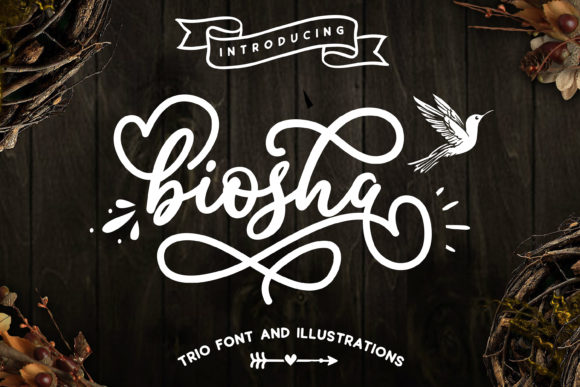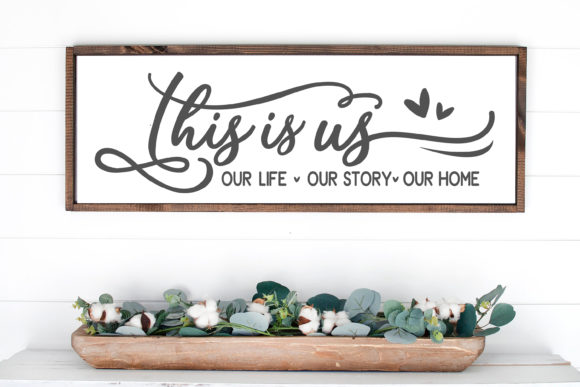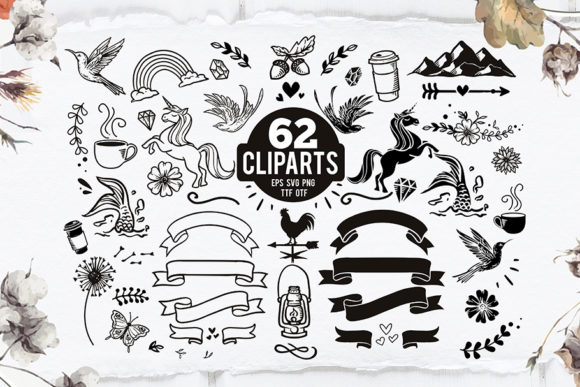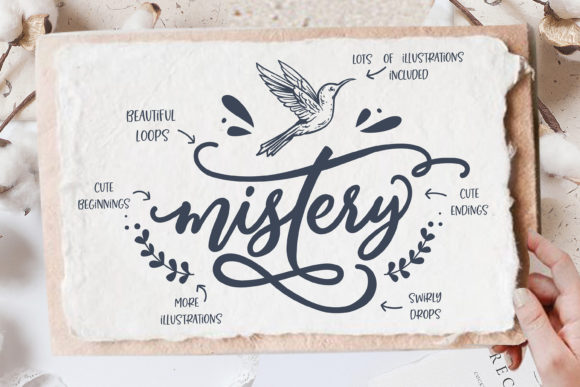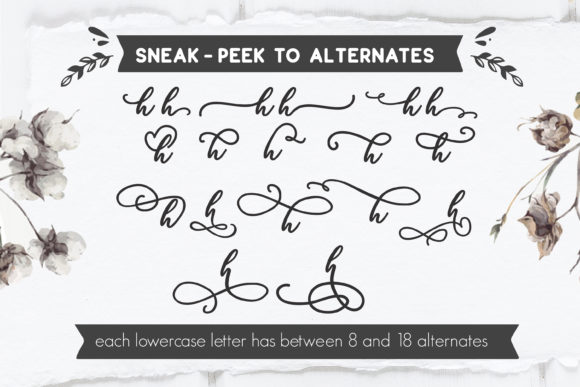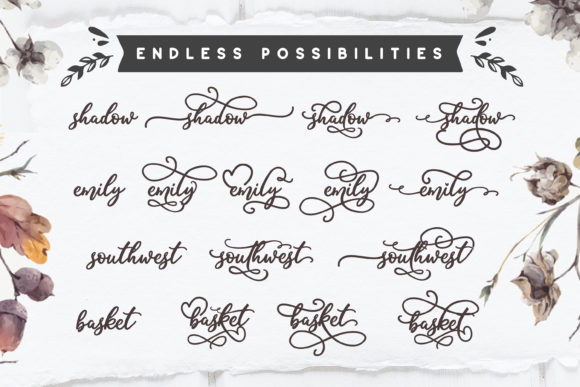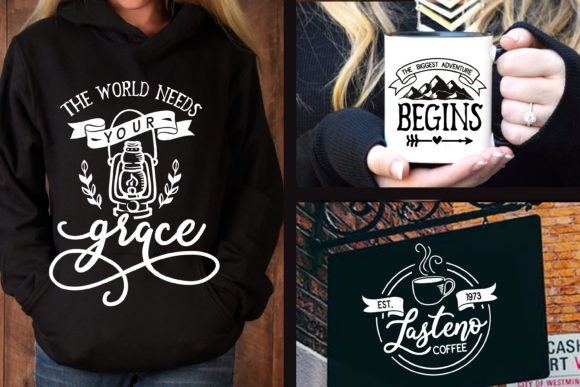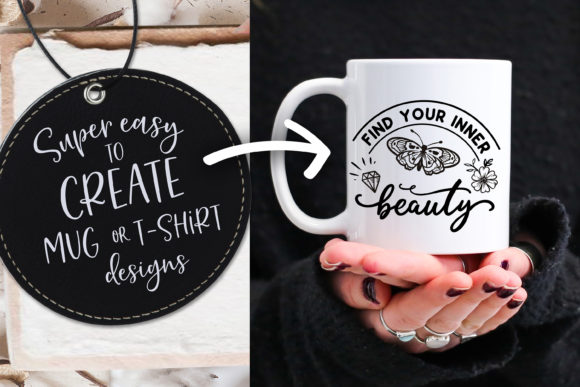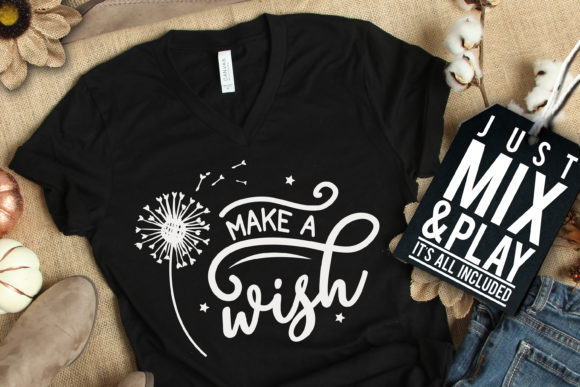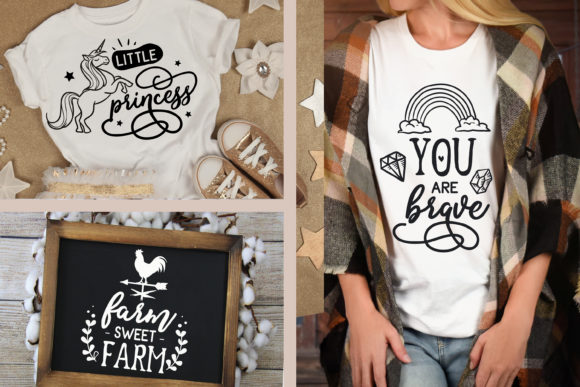
Biosha Font
About Biosha Font
Biosha is a beautiful and stunning handwritten font with an incredibly lovely feel. Get inspired by its authentic vibe, and turn any design project into a standout!